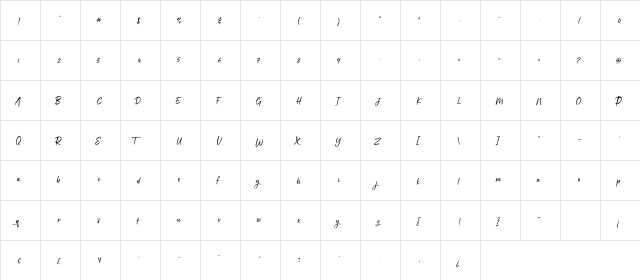
Holiday Script Regular
Design Context for Holiday Script Typeface
Holiday Script flows with the natural rhythm of handwritten lettering, making it ideal for designs that call for warmth and personal expression.
Font Pairing: Combine Holiday Script with a simple geometric sans for maximum contrast — the tension between flowing curves and clean structure is a classic typographic pairing.
Pro Tip: Pair Holiday Script with a clean sans-serif for supporting text. The contrast between fluid script and geometric structure creates an elegant typographic hierarchy.